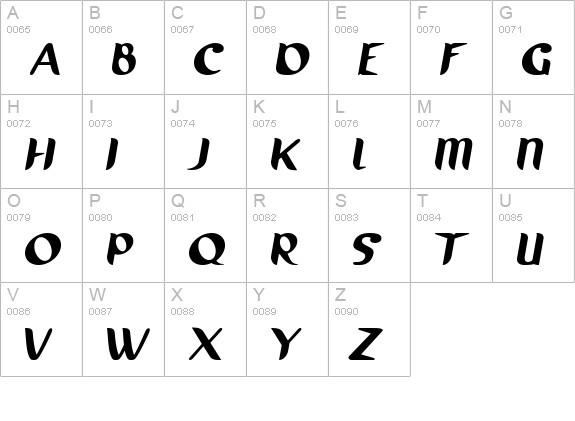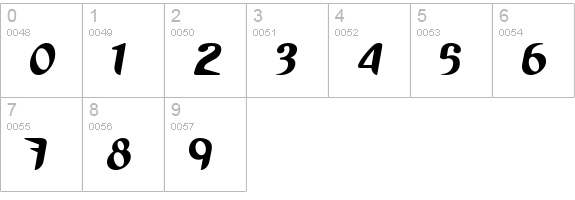
Running shoe Font Details
The Running Shoe font is a dynamic and energetic typeface that captures the spirit of movement and speed. Its sleek and modern design is perfect for projects that require a touch of athleticism and vitality. The font features bold and strong letterforms that convey a sense of power and agility. Whether you're designing sports-related materials, fitness marketing campaigns, or simply want to add a sporty flair to your creative projects, Running Shoe font is the perfect choice. Its versatility makes it suitable for a wide range of applications, from posters and flyers to website headers and social media graphics. Best of all, Running Shoe font is available for free download at FontsMarket.com. So go ahead and give your designs a boost of energy and style with this exciting typeface!